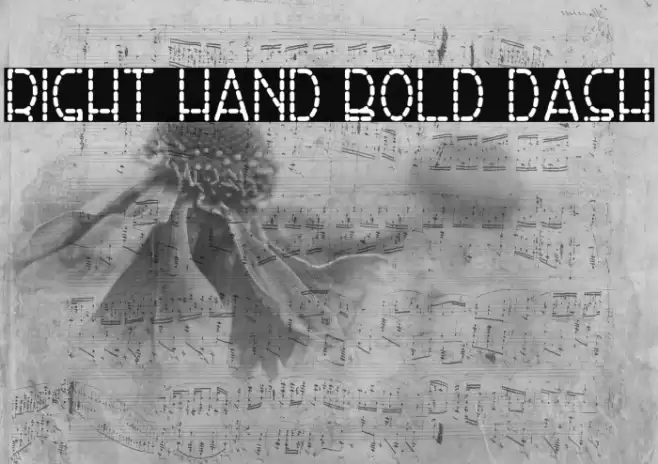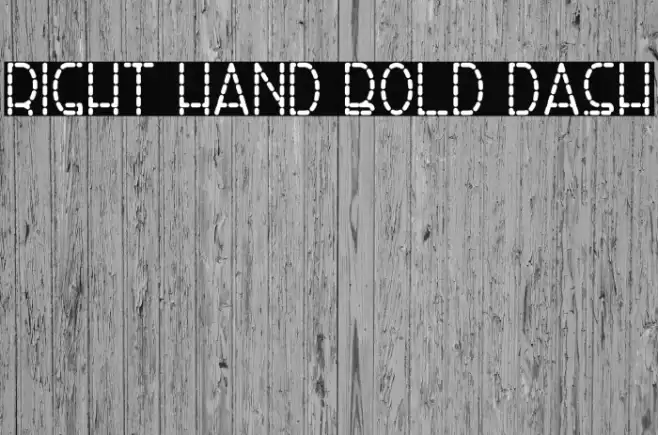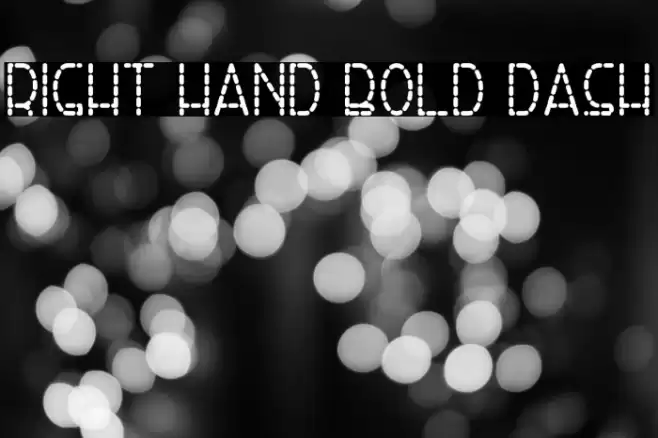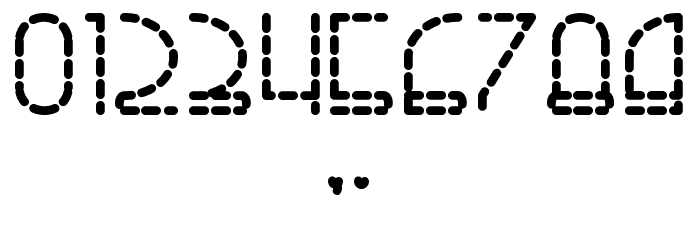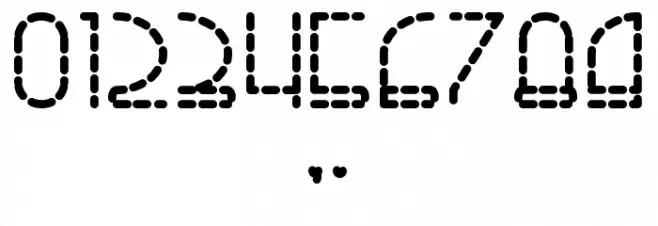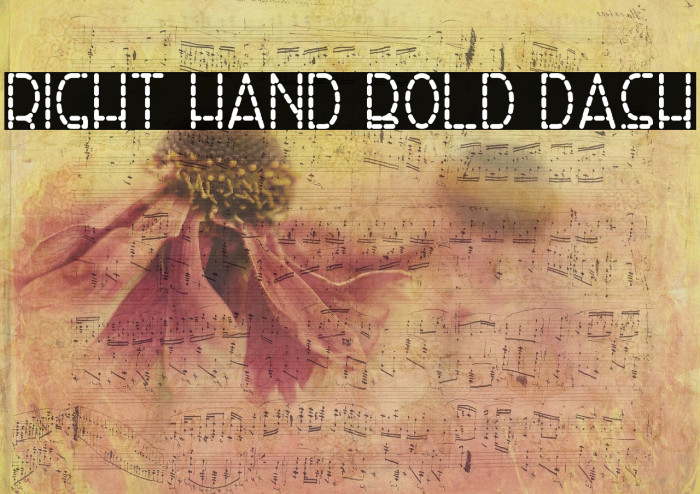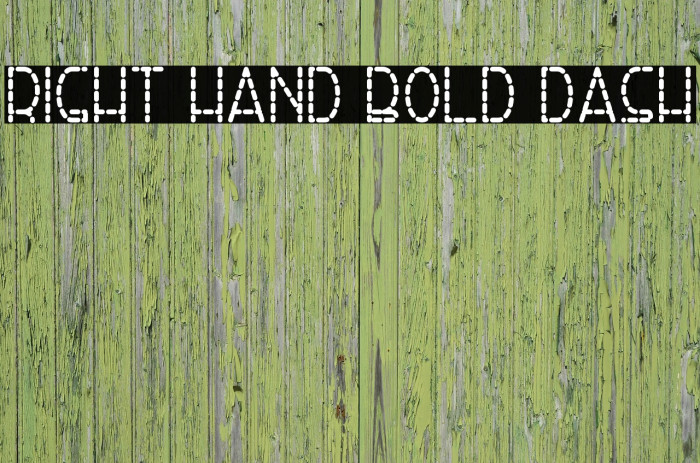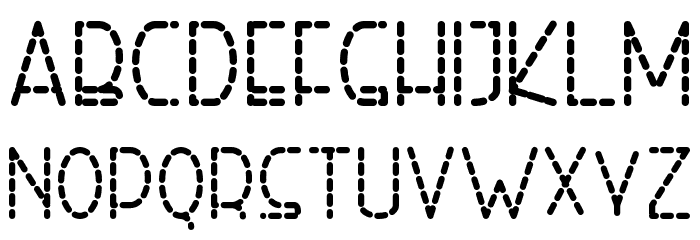
Right Hand Bold Dash Font
Right Hand Bold Dash Description
This font features a unique design where each character is constructed using a series of bold, evenly spaced dashes. The uppercase letters are uniform in height and width, creating a cohesive and structured appearance. The font's geometric nature gives it a modern and industrial feel, making it stand out in any design. The numbers follow the same dashed pattern, ensuring consistency across all characters. This font's distinct style is both eye-catching and functional, suitable for various creative applications.
A bold, dashed font with a modern, geometric style from Uncategorized fonts.